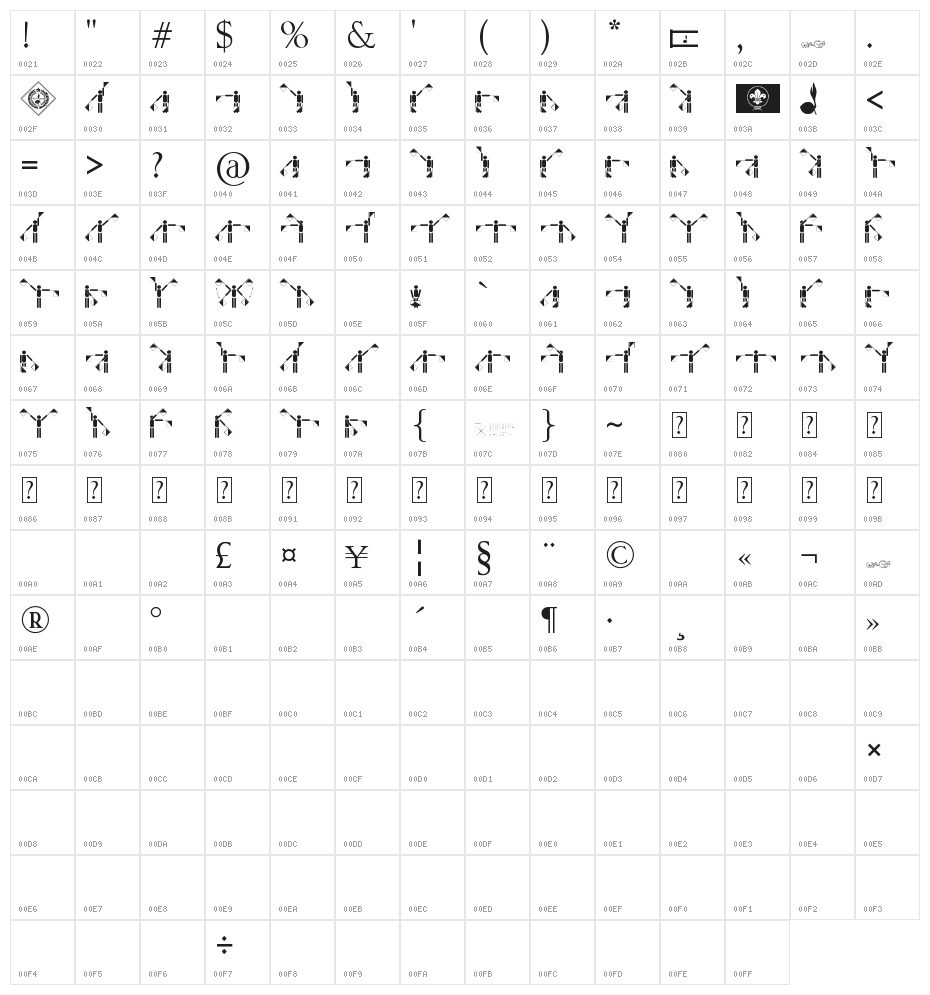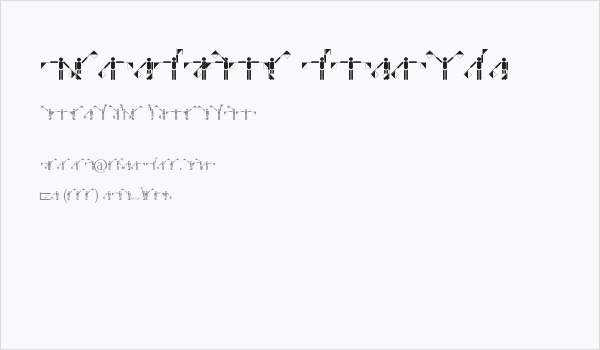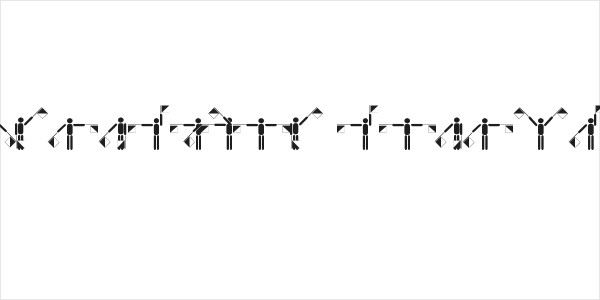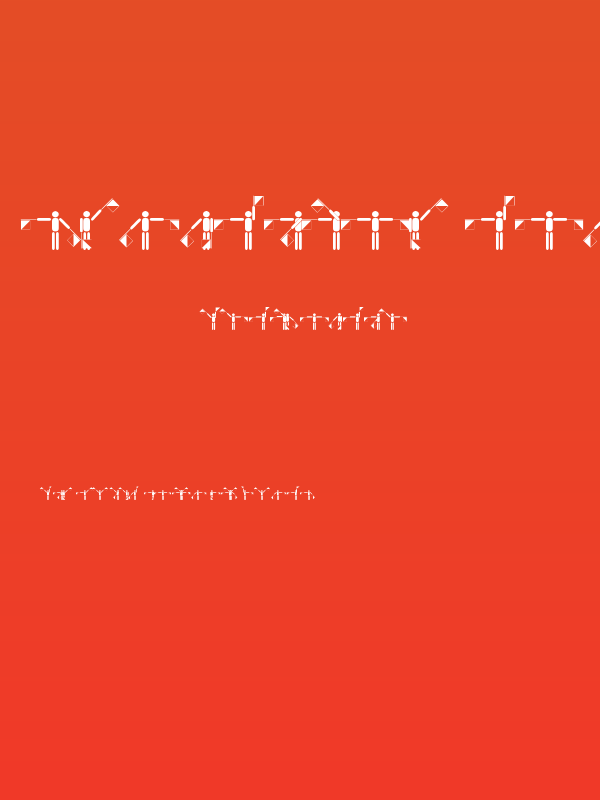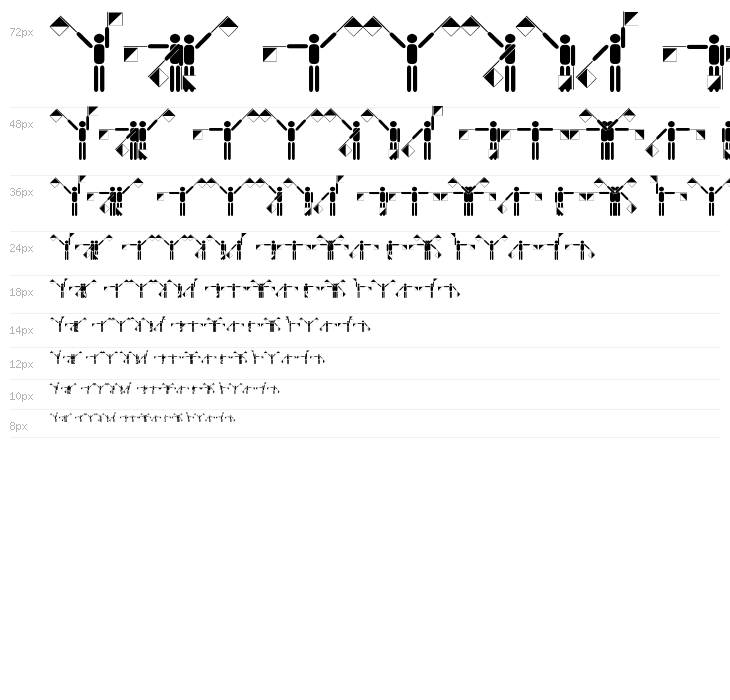
Semaphore Pramuka Font
| Caso d'uso | Logos, Educational materials, Themed designs |
| Progetti proposti | Ideal for educational materials, maritime-themed designs, or creative projects that incorporate signaling and communication. |